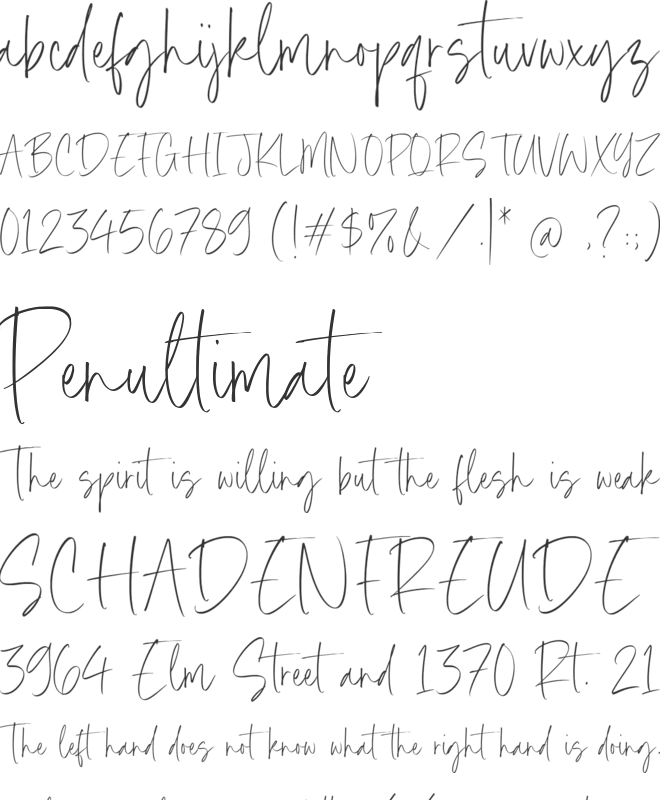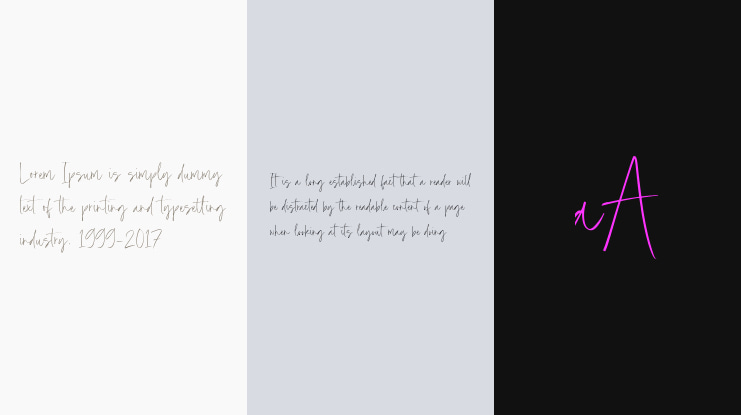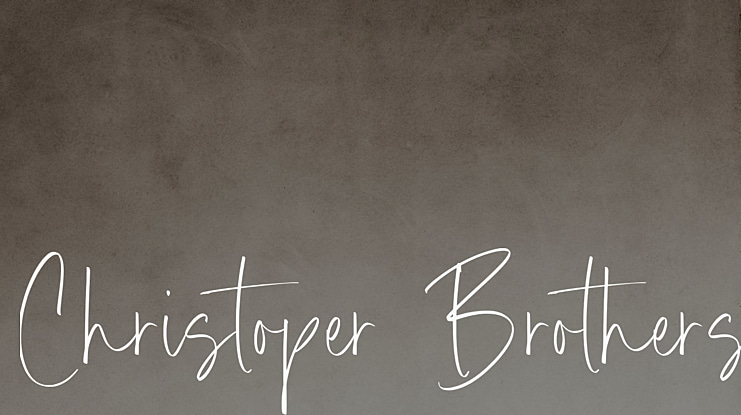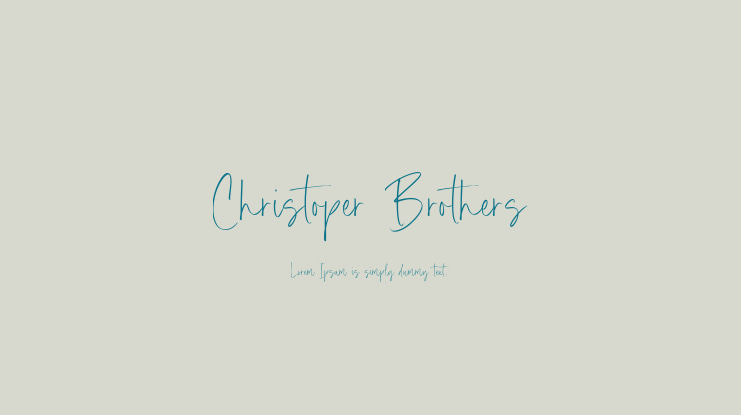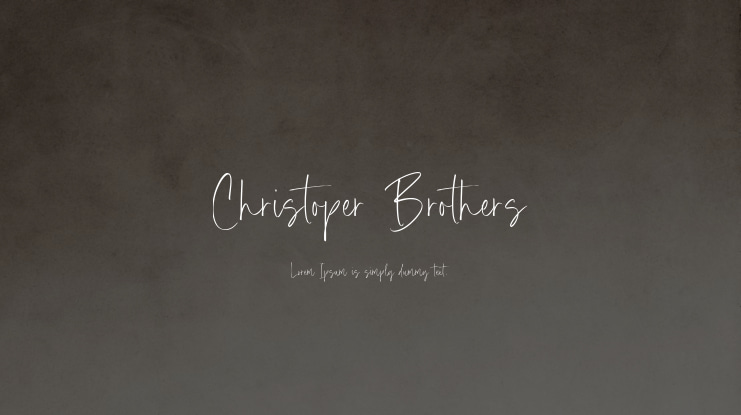
Introducing the Christoper Brothers Handwritten Font, a modern and fresh script font that will add a warm and inviting touch to your business. This font is perfect for various applications such as product packaging, branding projects, magazines, social media, weddings, or anywhere you want to express words beautifully on a background.
The Christoper Brothers Font offers premium features including OTF and TTF formats. It includes a full set of standard alphabets and punctuation, ensuring versatility for your designs. Additionally, this font supports multiple languages, making it suitable for a global audience.